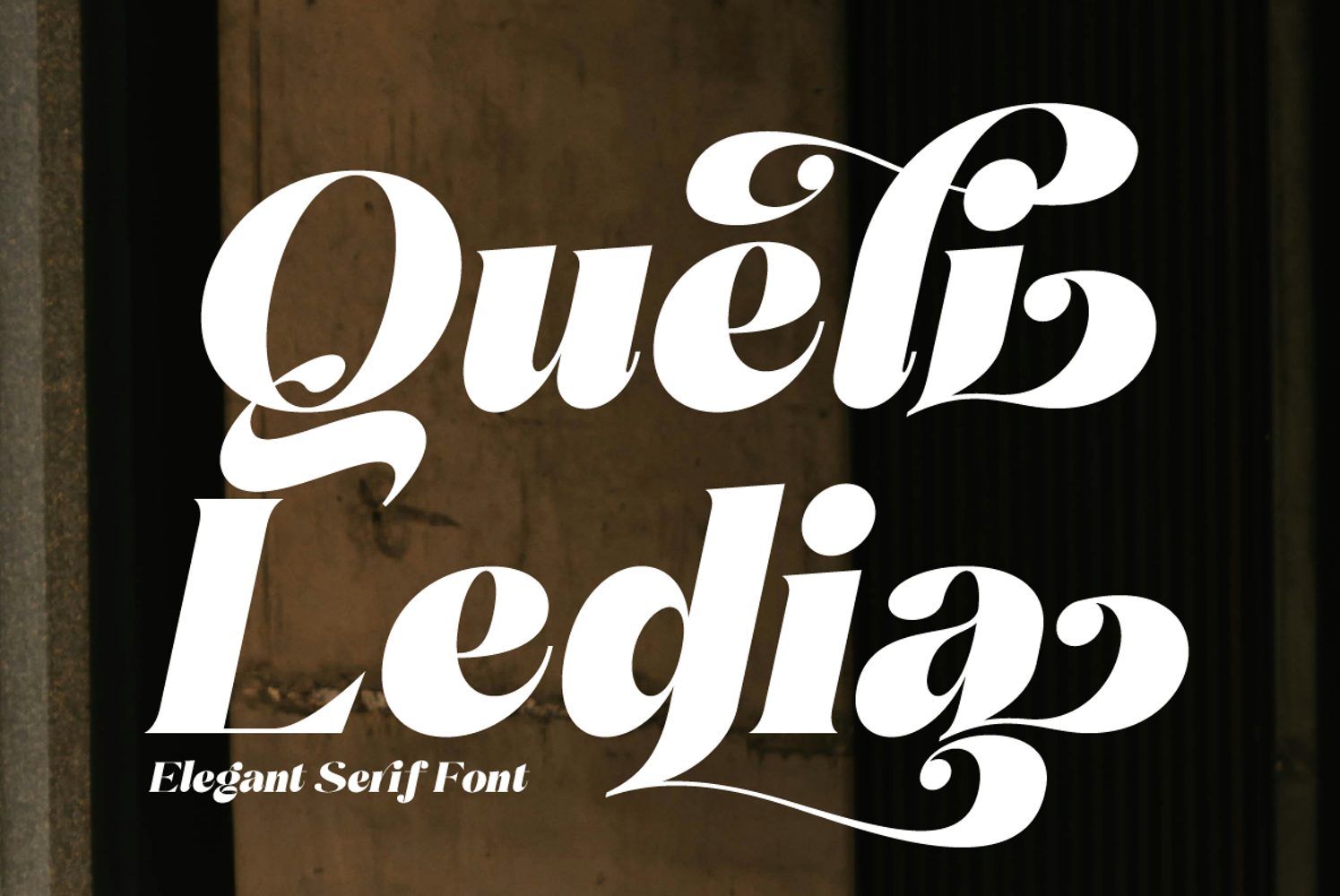
Queli Ledia: A Luxurious Serif Font
Queli Ledia is a decorative serif font designed to exude luxurious elegance and a bold artistic touch. Combining a classic serif structure with long, dramatic, and flowing swashes, this typeface creates a truly unique and unforgettable visual impact.
Key Characteristics:
• Ornate Serif Style: A strong serif foundation is enriched with ornate curves and tails, giving the font a distinct and highly stylized character.
• Dramatic Swashes: The prominent, winding swashes featured on many uppercase and lowercase letters provide a captivating sense of movement and opulence.
• Rich Alternate Glyphs: Equipped with an extensive set of alternate characters and ligatures, allowing designers to customize every word with the perfect decorative flair.
• Solid Weight: With a substantial thickness, Queli Ledia offers strong contrast and excellent legibility for bold titles and headlines.
Vibe and Feel:
• Luxurious and Exclusive: Perfectly suited for premium brands looking to highlight class, sophistication, and high quality.
• Stylish Retro-Classic: Brings a touch of classic nostalgia, beautifully reinterpreted with a fresh, modern twist.
• Artistic and Expressive: Empowers designers to craft emotional, highly artistic, and bespoke typographic compositions.
Ideal Usage:
• Luxury Brand Logos & Identity: High-end fashion, cosmetics, jewelry, boutique hotels, and perfumes.
• Premium Product Packaging: Wine labels, artisan chocolates, and gourmet goods.
• High-End Wedding Invitations: Creating an elegant and memorable impression for a special day.
• Fashion Magazine Titles: Crafting strong, stylish headlines for fashion and lifestyle editorials.
• Editorial Typography: Making a bold visual statement in sophisticated layout designs.
Queli Ledia is the perfect choice for projects that require a serif font that is not only highly functional but also commands the center of attention